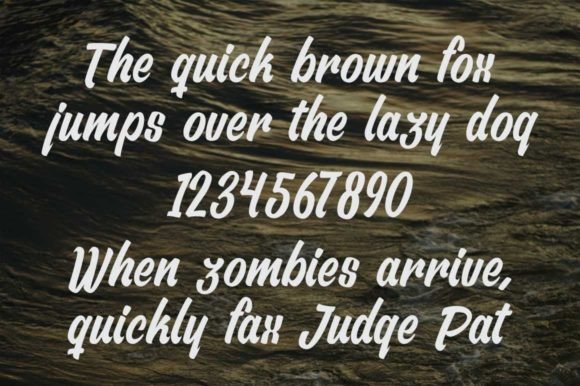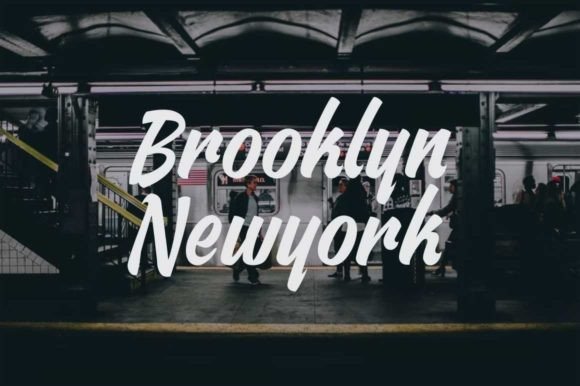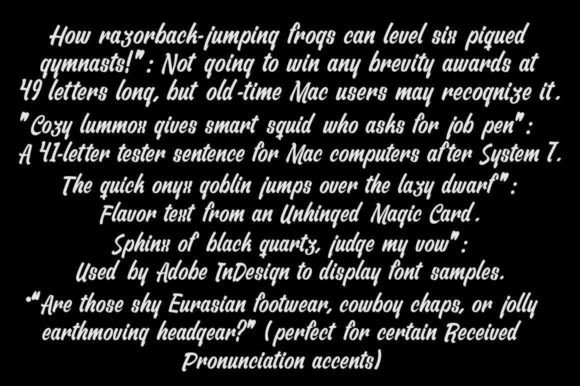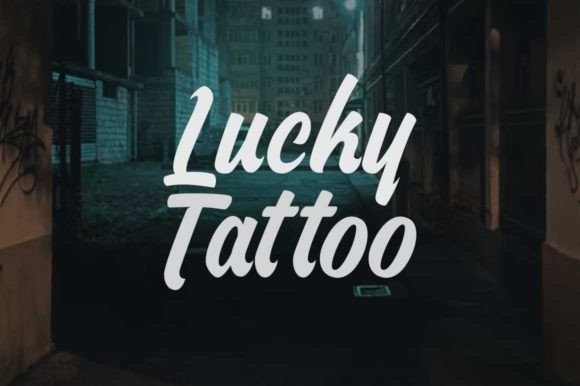
Introduction to Pentagraph Font
Pentagraph is an elegant and original handwritten font.
With exclusive characters, it will look stunning on any of your special projects Add it to your wedding invitations, promotions, events, branding, advertising, T-shirts, books, name cards, logos, posters, signatures, and many more, and they will look spectacular.